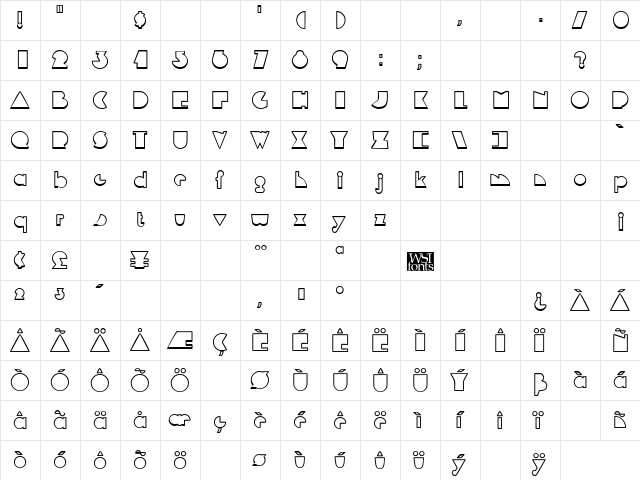
MandrelOutline Regular Font Preview
MandrelOutline Regular
MandrelOutline Regular Font Details
Design Context for MandrelOutline Typeface
MandrelOutline is built around its visual character rather than neutral utility — its distinctive forms are designed to make an impression at display sizes.
Font Pairing: Pair with a clean neutral sans-serif for body copy to let MandrelOutline's character lead without overwhelming the composition.
Pro Tip: Use MandrelOutline exclusively at display sizes — it was designed to be seen, not read at length. Let a neutral companion handle body copy.